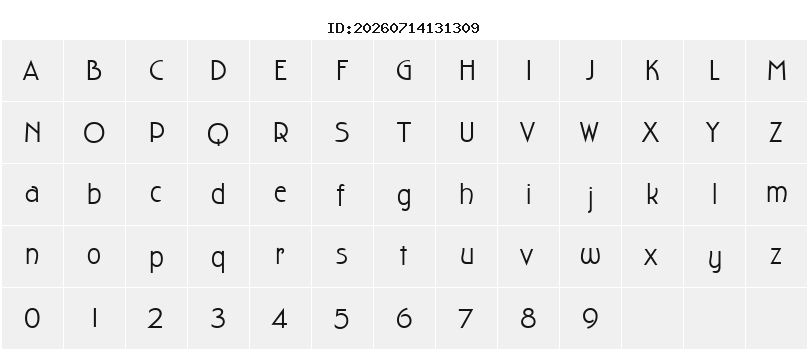
About Hardwood.ttf
Hardwood.ttf is a modern, elegant sans-serif font designed for ultimate readability and visual harmony. Perfect for branding, headlines, web design, and print materials.